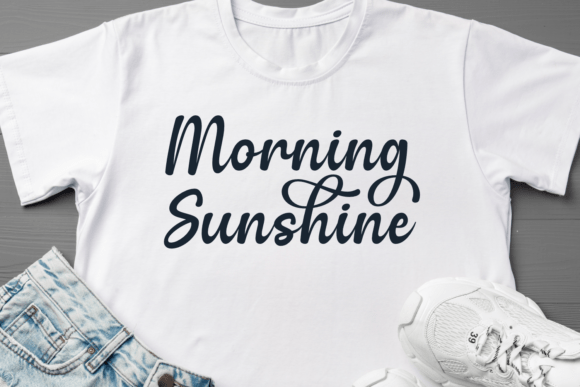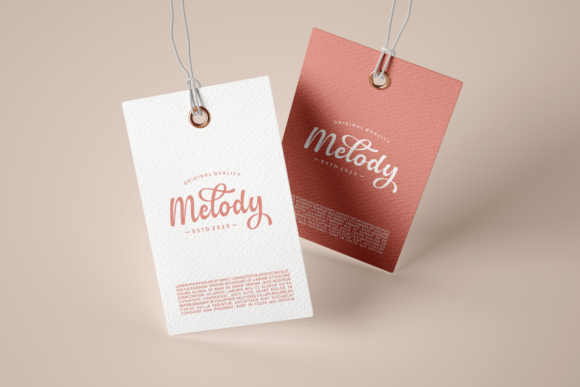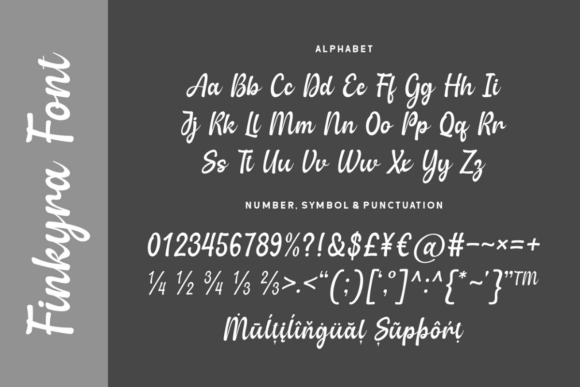
Introduction to Finykra Font
Finkyra is a sophisticated script font that blends bold elegance with smooth fluidity.
Featuring flowing swashes, confident curves, and a modern calligraphic touch, Finkyra is perfect for fashion logos, signature branding, wedding stationery, and editorial titles Its eye-catching design brings a refined personality to both upscale and creative projects.